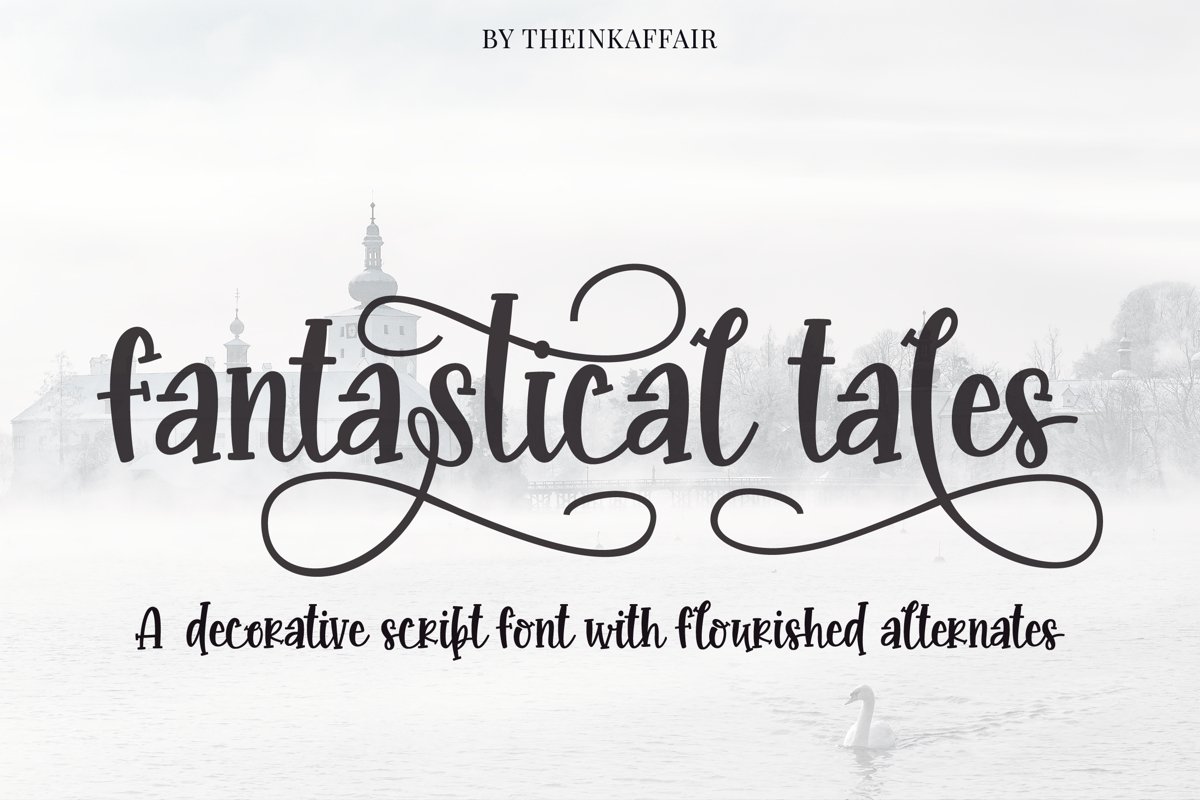
Fantastical tales, decorative script font
A playful, decorative script font that comes with a set of uppercase, lowercase as well as flourished lowercase alternates.
Perfect for designing invitations, logos, branding, packaging as well as cuttable designs.